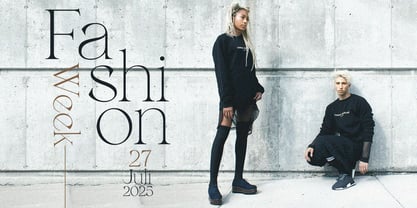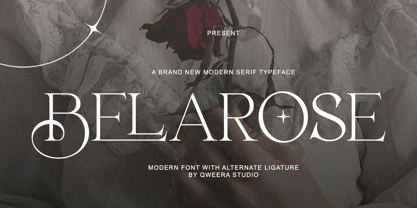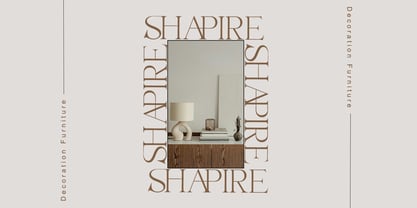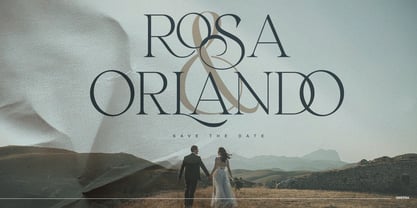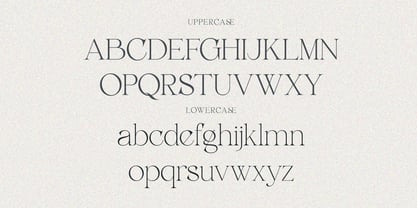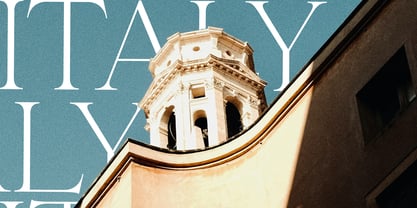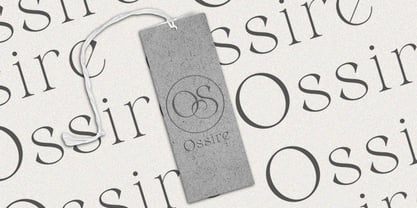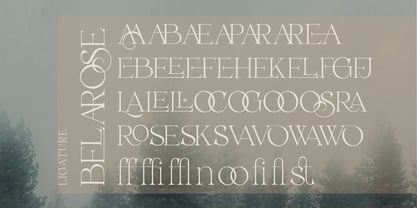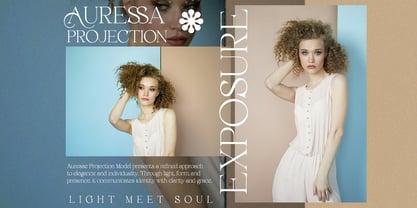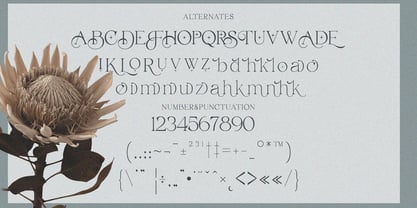
Belarose
by Qweera Studio
The Belarose Font Family was designed by Idhham Cholid Rikzano Yahya and published by Qweera Studio. Belarose contains 2 styles and family package options.
Belarose - Modern Elegant Serif Font for Sophisticated Branding Belarose is a breathtaking modern serif that combines contemporary elegance with timeless grace. Featuring both Regular and Italic styles with premium alternates and ligatures, this font is expertly crafted for luxury branding, high-end logos, refined packaging, and editorial designs that demand both beauty and functionality. Where Contemporary Design Meets Classic Sophistication With its delicate serifs and flowing italic variant, Belarose offers exceptional versatility for discerning brands. The thoughtfully designed alternates and ligatures allow for exquisite typographic compositions that exude understated luxury. Premium Features Include: Refined Serif Design – Balanced letterforms with elegant details Dual Style Versions – Regular & italic for harmonious pairings Exclusive Alternates – 25+ sophisticated character variations Graceful Ligatures – Seamless letter connections Universal Application – From stationery to environmental branding Extended Latin Support – Complete character coverage Elevate Your Projects with Belarose's Refined Beauty Ideal for: Luxury fashion identities Premium beauty packaging High-end editorial design Elegant logo creation Sophisticated wedding suites Available Now - Experience Belarose's Timeless Elegance!